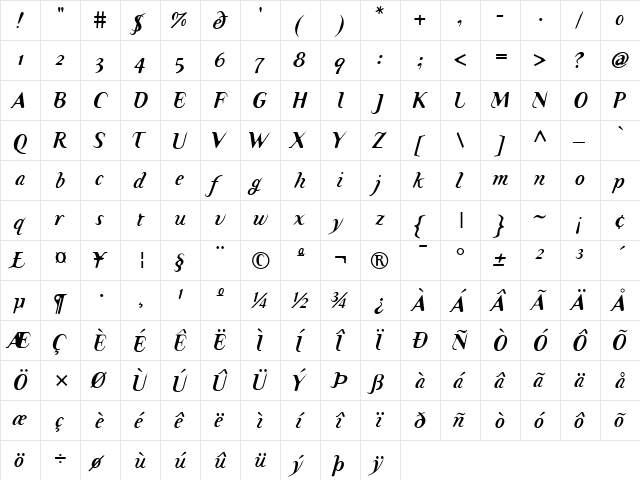
TemaCantante Bold Italic
Design Context for TemaCantante Typeface
TemaCantante is a composed and adaptable typeface that performs quietly and consistently across a wide range of design contexts. The dynamic lean of this cut emphasises speed and emphasis in any layout. The heavy weight commands attention and anchors typographic hierarchies.